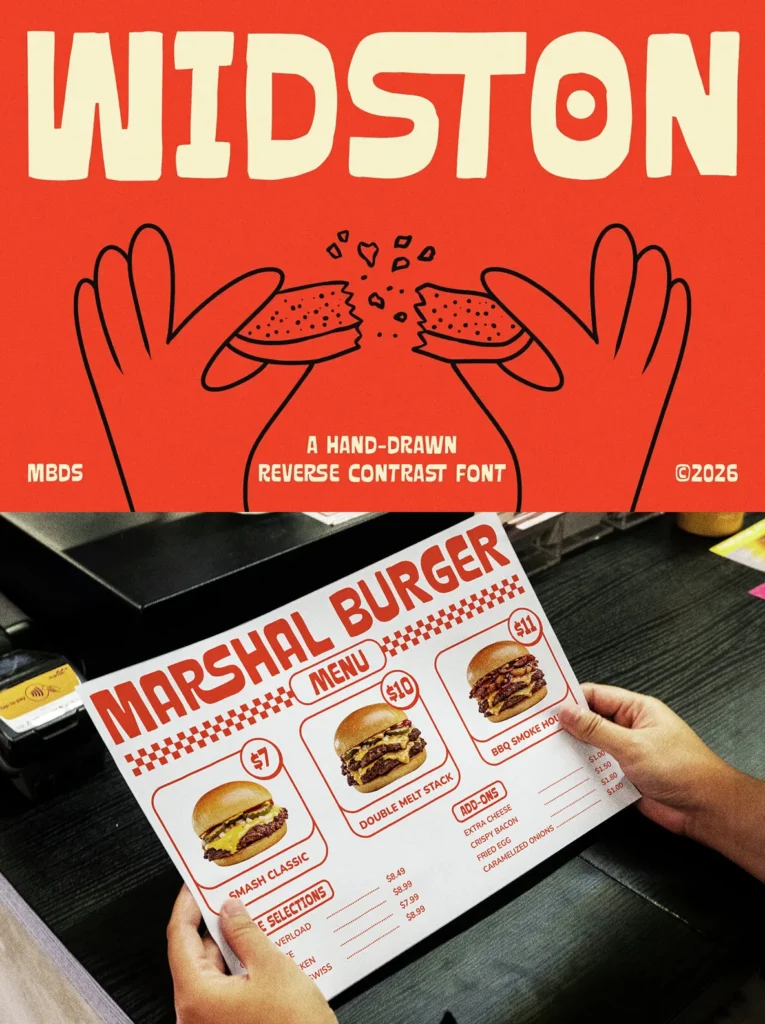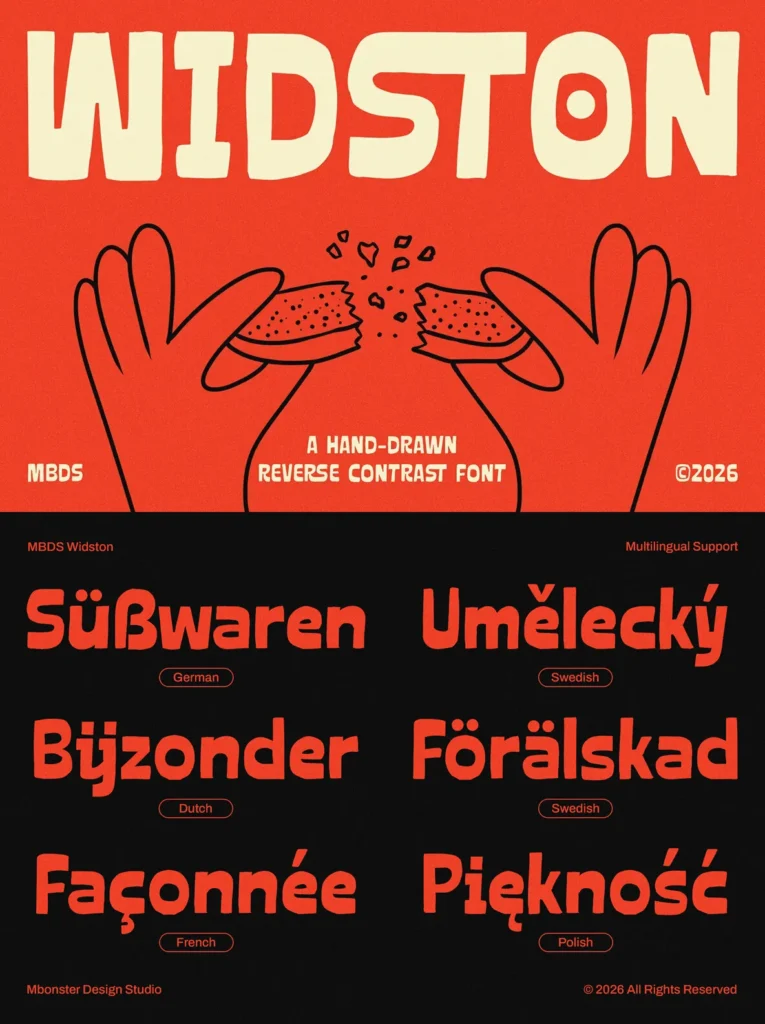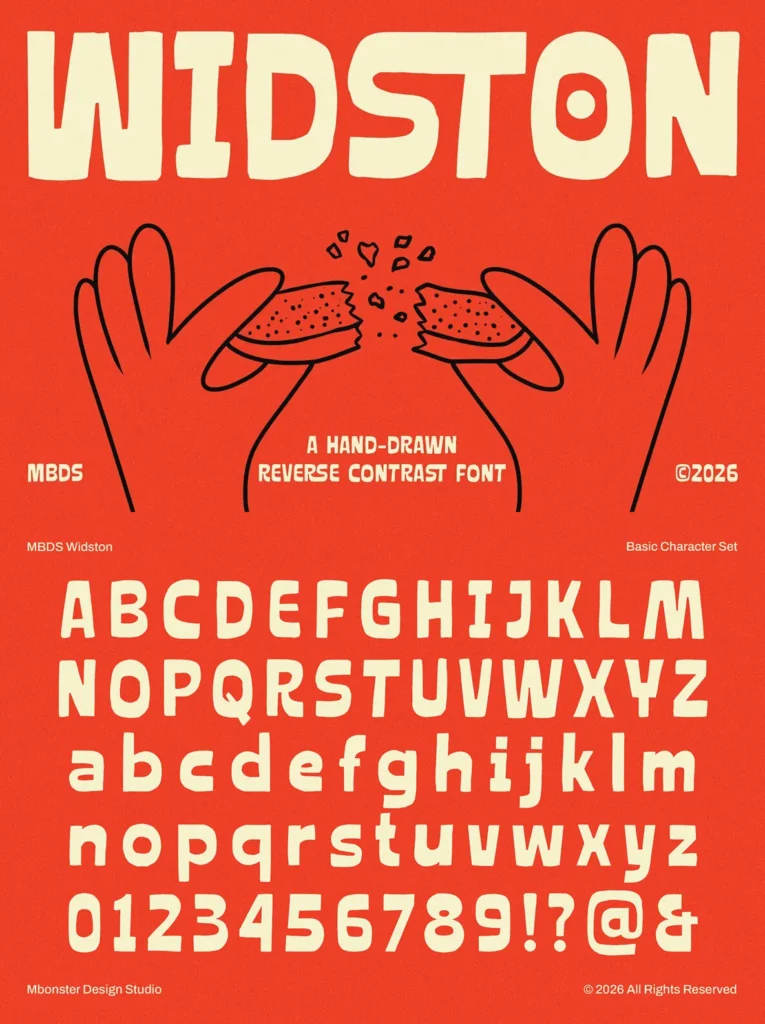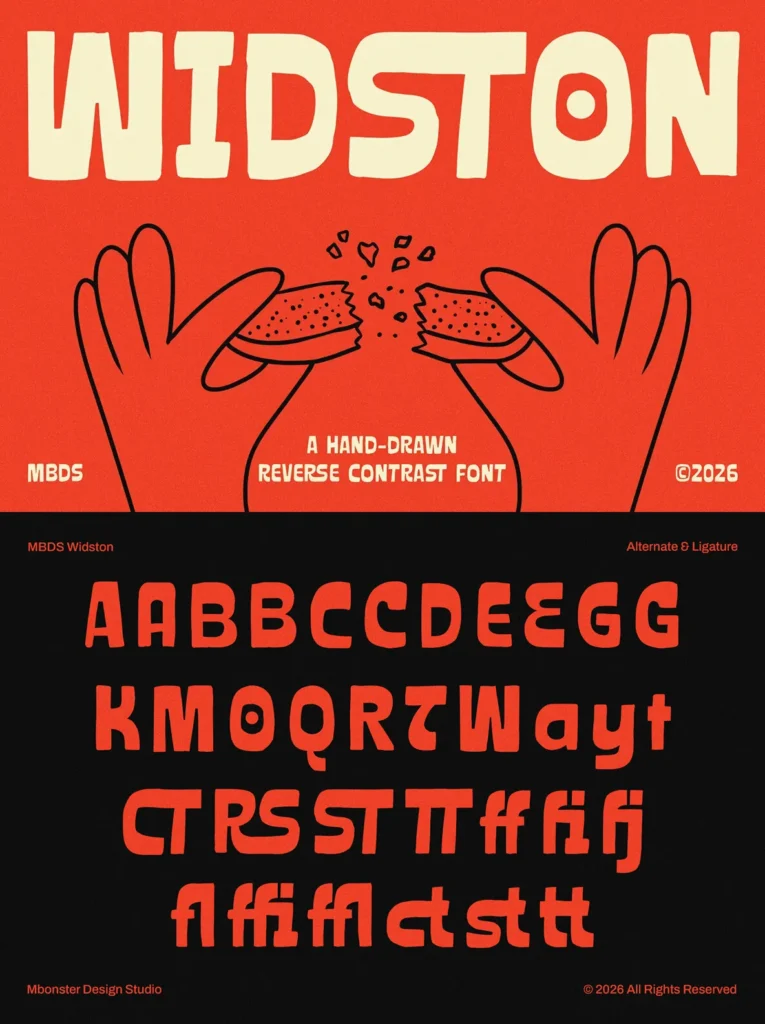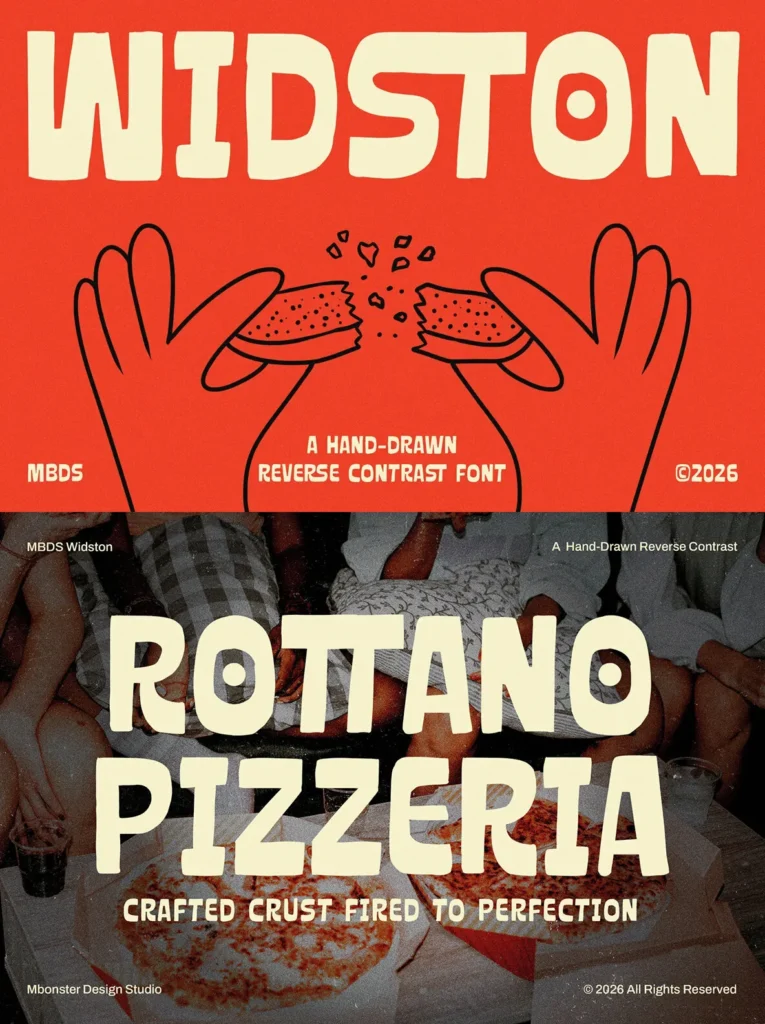
Widston — Hand-Drawn Reverse Contrast Style
Widston is a bold hand-drawn reverse contrast display font inspired by vintage signage, retro packaging, and classic storefront lettering. Its chunky shapes, playful details, and handcrafted character give it a warm, friendly look that draws attention quickly.
Designed for logos, branding, packaging, posters, menus, merchandise, and social media graphics, Widston brings a distinctive retro feel while remaining highly versatile. With alternates, ligatures, and multilingual support, it is an excellent choice for projects that need personality, charm, and strong visual impact.
Bold Reverse Contrast Design:
A unique vintage-inspired style that instantly stands out.
Handcrafted Personality:
Imperfect details and organic forms add warmth and charm.
Complete Character Set:
Uppercase, Lowercase, Numerals, and Punctuation Included.
Alternates & Ligatures:
Create custom-looking logos, headlines, and branding with ease.
Multilingual Support:
Designed to work across a broad range of Latin-based languages.
Widston is more than a font. It is a bold retro statement, made to bring warmth, character, and unmistakable personality to every design.